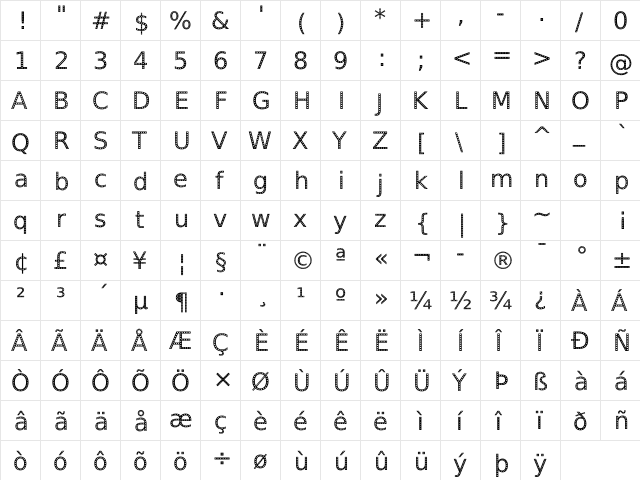
Spranq eco sans Regular
| Foundry | Spranq |
| Designer | Designed by Spranq on base of the Bitstream Vera font family |
Design Context for Spranq eco sans Typeface
Spranq eco sans is a composed and adaptable typeface that performs quietly and consistently across a wide range of design contexts.